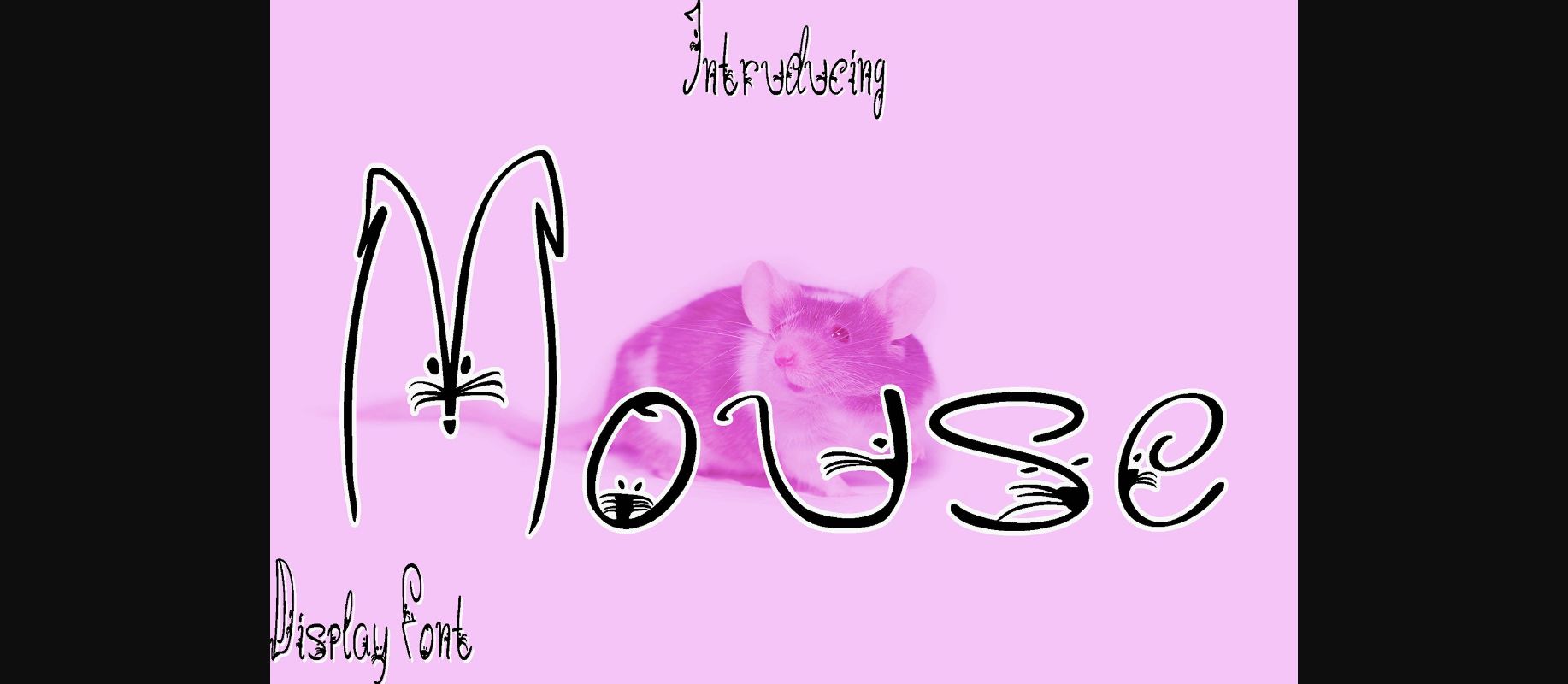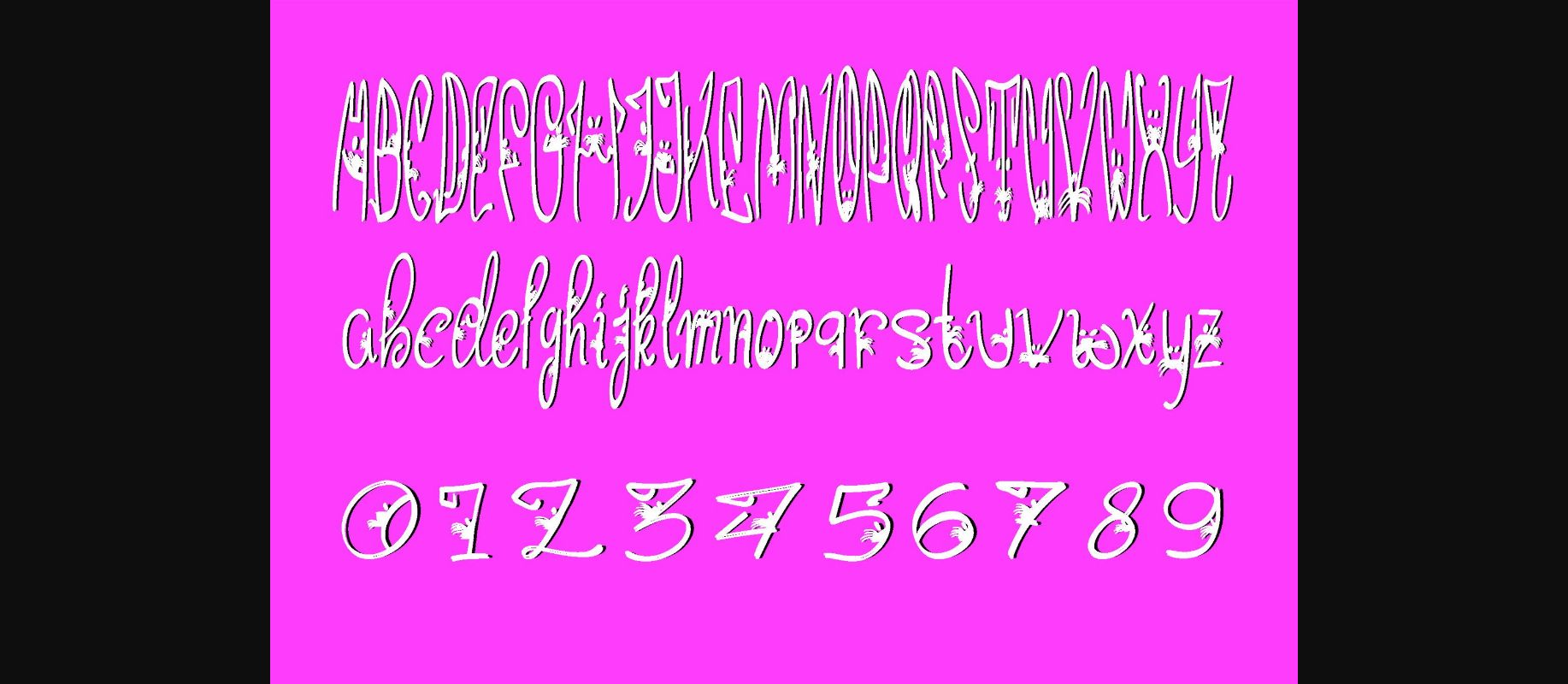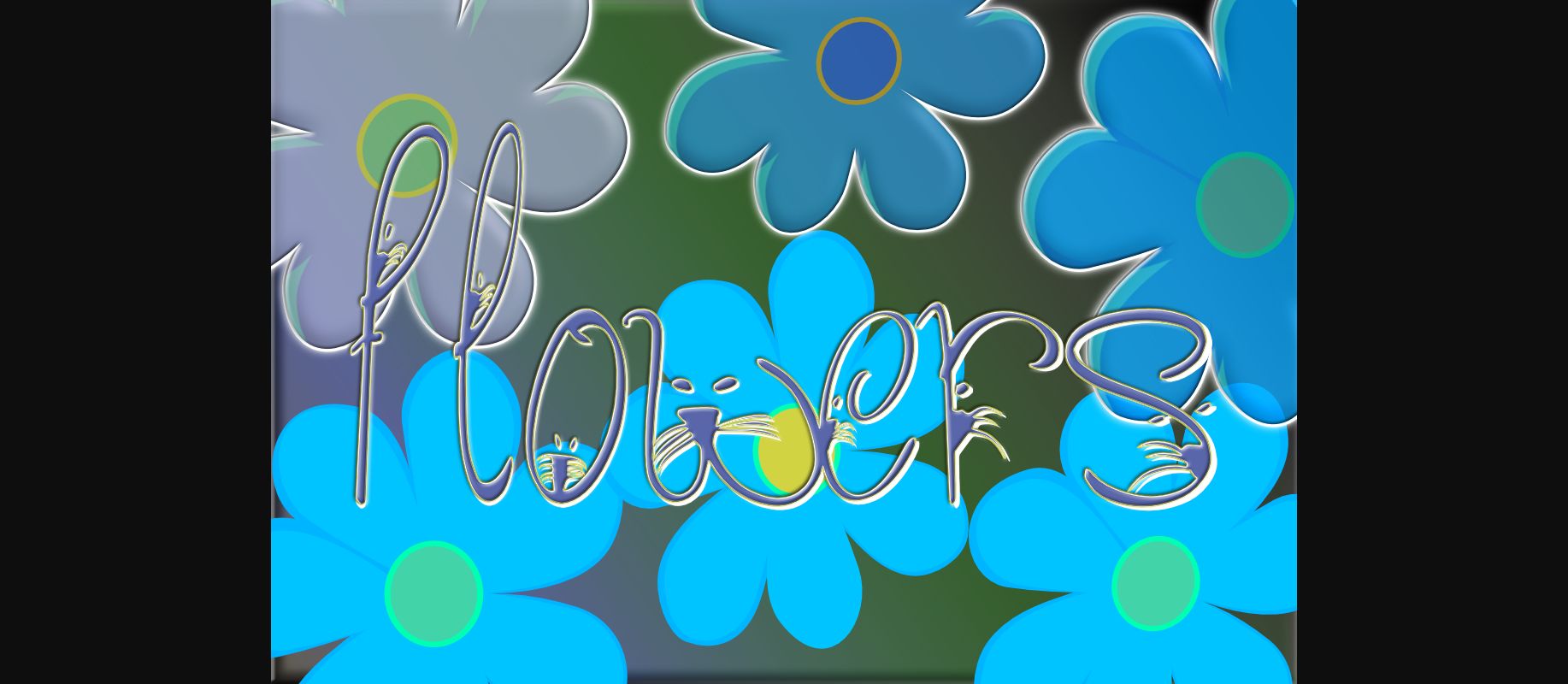
About Mouse Font
Mouse is a fun and whimsical decorative font. It embodies playfulness and authenticity and is the perfect choice for any children’s activity or school project.